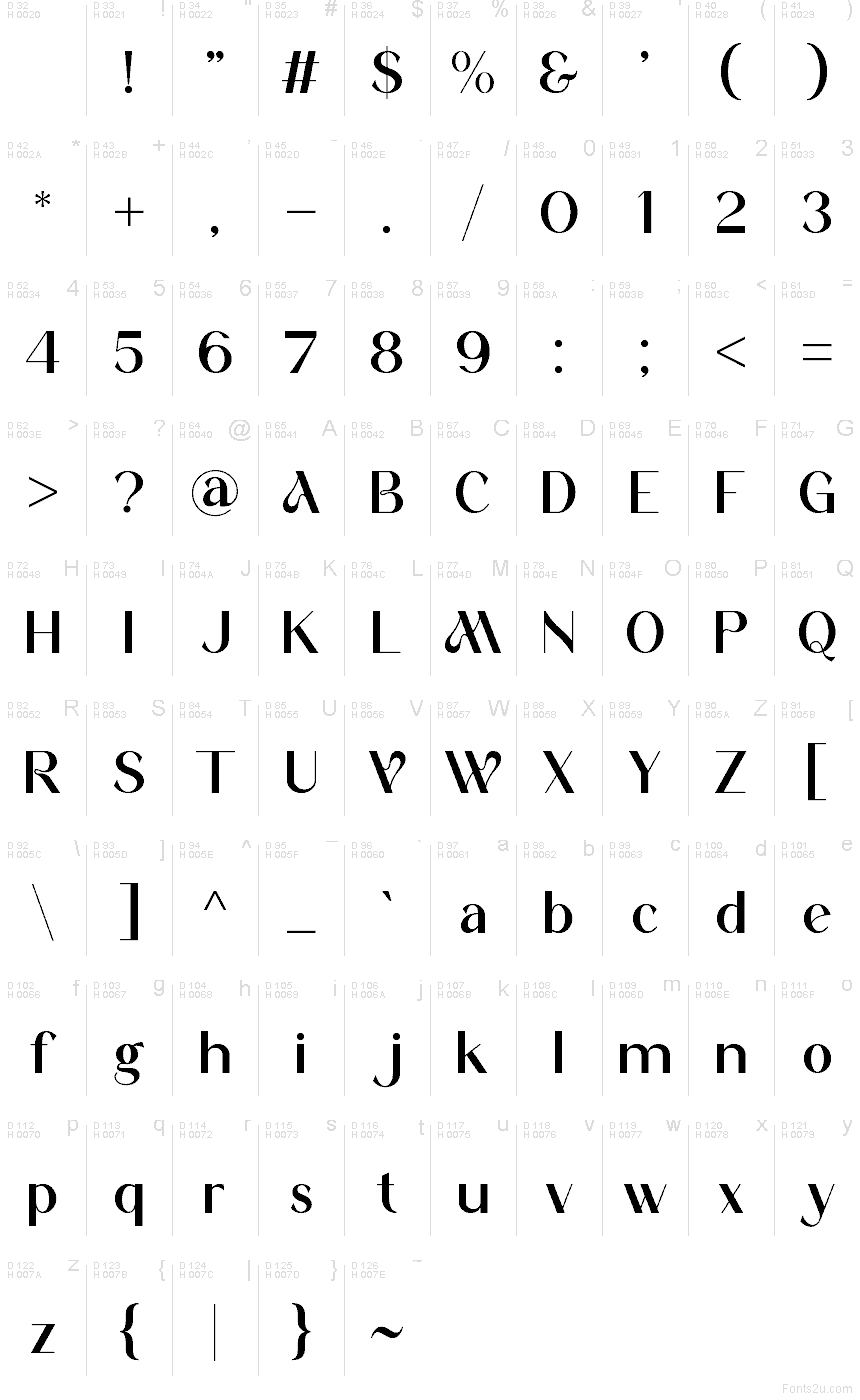
Mollega by Ermedia Studio is a free high-contrast serif font with a distinctly modern fashion-editorial mood. Dramatic shifts from broad strokes to fine lines give the letters a poised silhouette, while soft teardrop curves and sweeping details temper the sharper edges.
It suits magazine mastheads, beauty campaigns, perfume packaging, boutique branding, and elegant event invitations. As a free font, Mollega also works well for short headlines, cover lines, and title cards, where its sculpted forms have enough space to make their contrast and graceful movement felt.